Holiday campaigns are emotional races. People scroll, compare, and decide within seconds. That’s why your Ecommerce Holiday Banners must deliver emotion and trust instantly — not just look decorative. The right font grabs attention before color or imagery even register.
Imagine this: your sale headline whispers “warm gifts, fast shipping” with confidence, not clutter. The font you pick defines that tone. When typography is wrong, even your best discount sounds uncertain.
Humans buy emotionally, then justify logically. Festive fonts work because they bridge that gap — they carry joy, urgency, and familiarity in the same stroke. The key is to blend feeling with function. Your hero font should invite emotion; your supporting font should keep it readable.
Think of it like a duet: one sings the melody, the other keeps rhythm. Contrast is your silent conductor. Pair a dramatic display script with a clean sans serif for details, keep headlines large, and let white space breathe.
Slanted or racing typefaces like Traveliner instantly trigger motion and urgency — ideal for “Ends Tonight” or “Flash Sale” messages. But pair them with grounded sans-serif fonts to maintain balance.
Start with clarity. Every strong banner message follows this flow:
Value → Time → Action.
Example: “Extra 25% Off · Ends Sunday · Shop Now.”
Each of these fonts brings a distinct emotional flavor — from cozy and nostalgic to sleek and futuristic — all designed to help your banners sell faster and feel memorable.
Midnight Workers – A modern sans serif for clarity and confidence. Ideal for prices, codes, and CTAs that must stay crisp on mobile.
The Barethos – A delicious display font inspired by warmth and celebration. Use it for bakery, lifestyle, or gift-themed banners.
Perfect Love – A soft, romantic typeface that radiates kindness — perfect for family brands or heartfelt campaigns.
Retro Young – Vintage bold script that injects nostalgia; a must-try for “Holiday Classics” or “Limited Retro Sale.”
Graphiel – Elegant bold script with strong personality — great for premium or artisanal products.
Magic Dreams – A playful comic font that adds fun and color to kid-friendly or family-oriented banners.
Roadpunks – A hand-brushed typeface with urban energy; works perfectly for streetwear, lifestyle, or edgy holiday promos.
Hadejah – An elegant handwritten signature font that elevates high-end gifts and boutique campaigns.
Traveliner – Pure speed and momentum; the go-to font for flash sales and last-minute deals.
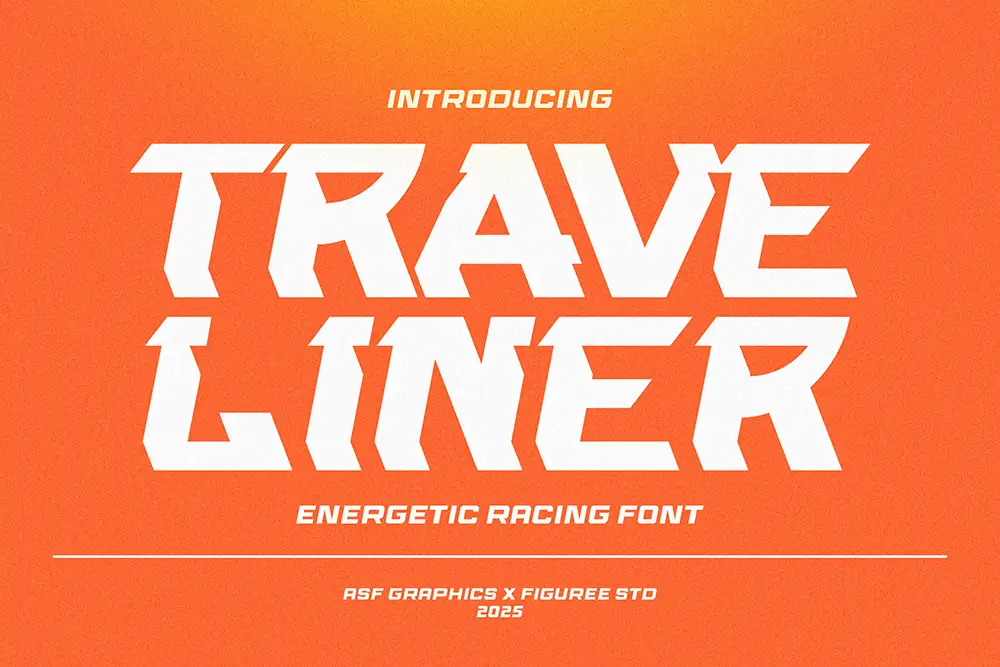
Heat Robox – A futuristic powerhouse that dominates New Year or tech banners with sleek, cyber appeal.
After hundreds of banner tests, one truth keeps surfacing — less noise, more emotion. A clear headline, strong font pairing, and one mood per design outperform every over-decorated layout.
Typography is not decoration; it’s a message amplifier. Whether you use the confident geometry of Midnight Workers or the human warmth of Hadejah, every curve and space tells your customer how to feel.